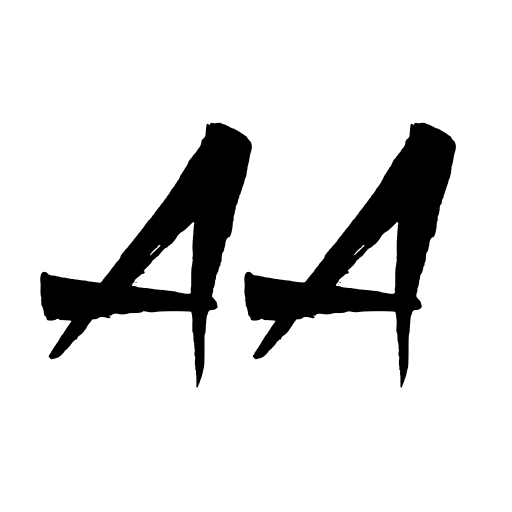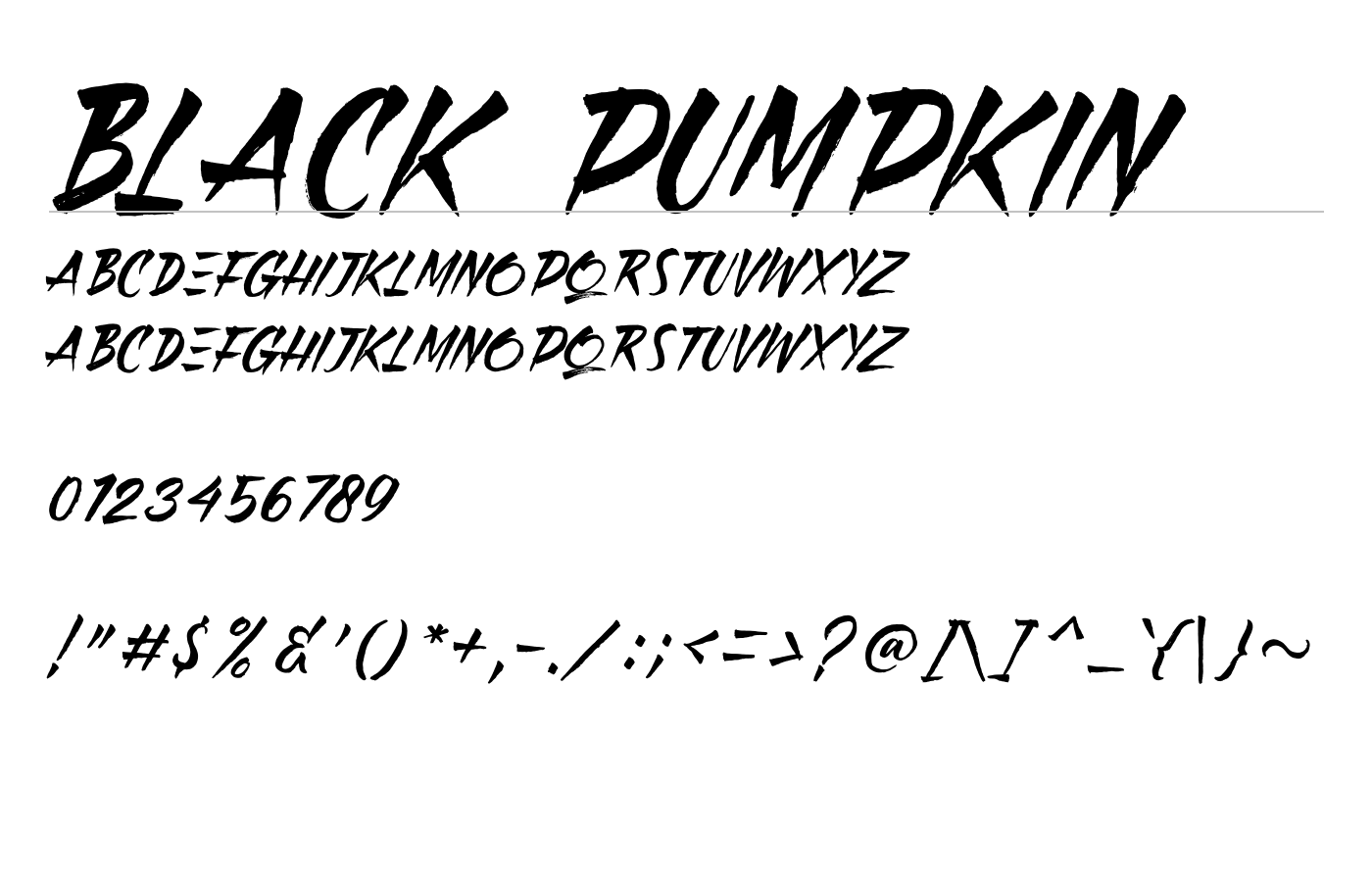
Black Pumpkin is a bold, expressive script font with an energetic, handmade feel that mimics brush strokes with rough edges and high contrast in stroke thickness. Its tall, narrow letterforms combined with dynamic angles and a slightly chaotic style make it perfect for eye-catching headlines, logos, and creative projects that want to convey a raw, artistic, or edgy vibe. This font works well in designs looking for a lively and bold personality, especially in branding, posters, and packaging where a strong visual impact is desired.
Black Pumpkin Font
About Black Pumpkin Font
| Font family | Black Pumpkin Font |